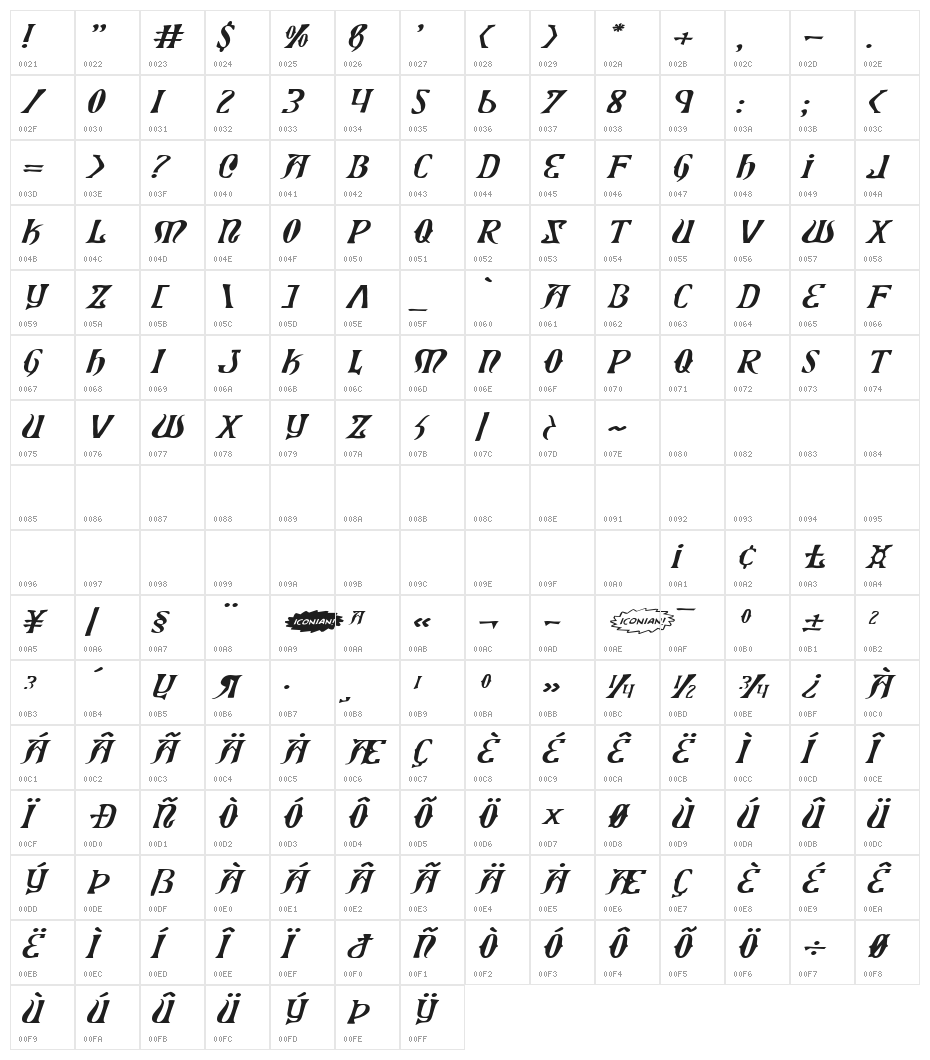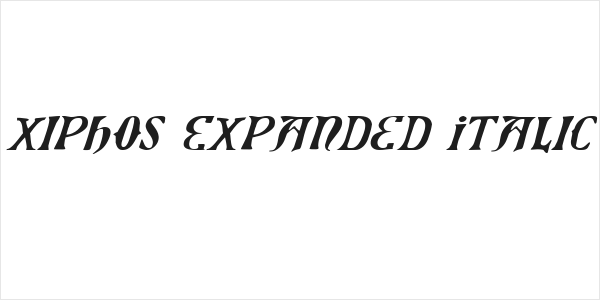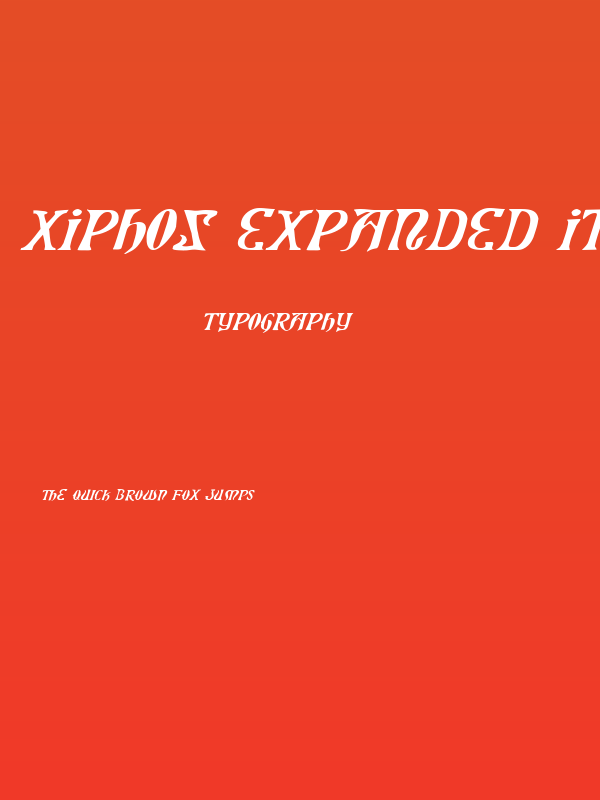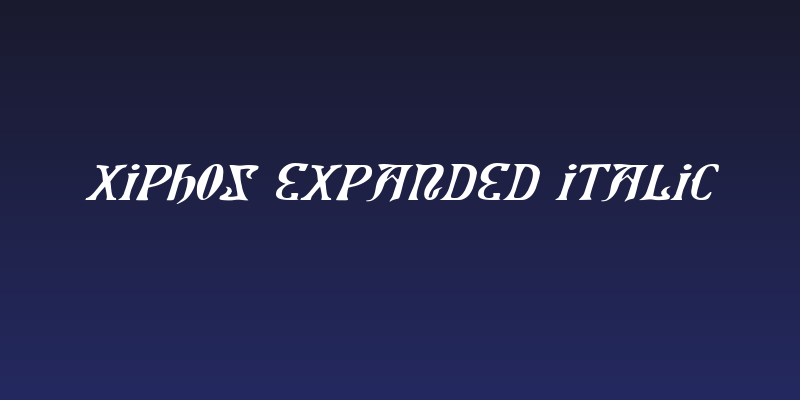
Xiphos Expanded Italic Font
Xiphos Expanded Italic Description
This font features an expanded and italicized style with a bold presence. The characters exhibit a dynamic and flowing design, reminiscent of calligraphic influences. The strokes are thick and consistent, providing a strong visual impact. The uppercase and lowercase letters maintain a cohesive style, with distinctive curves and angles that add to its unique appearance. The numerals and special characters are equally stylized, ensuring uniformity across all glyphs. This font's artistic flair makes it suitable for creative and expressive projects.